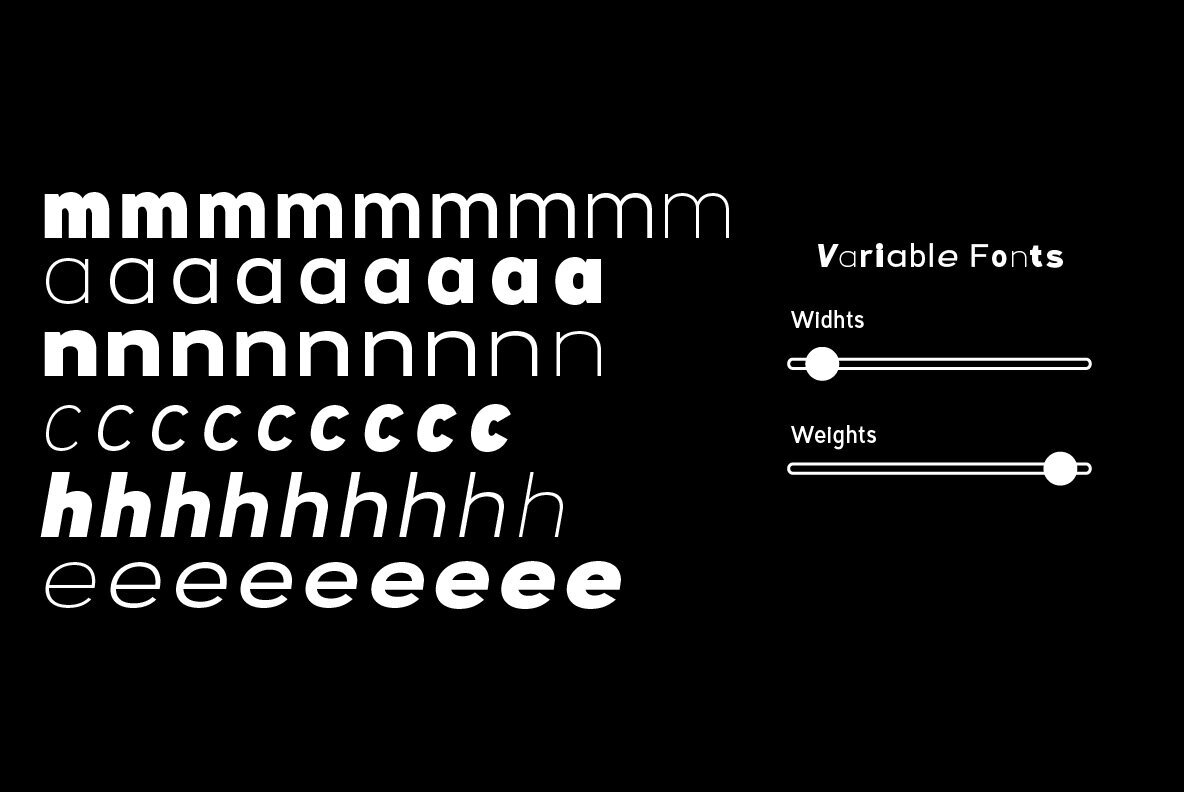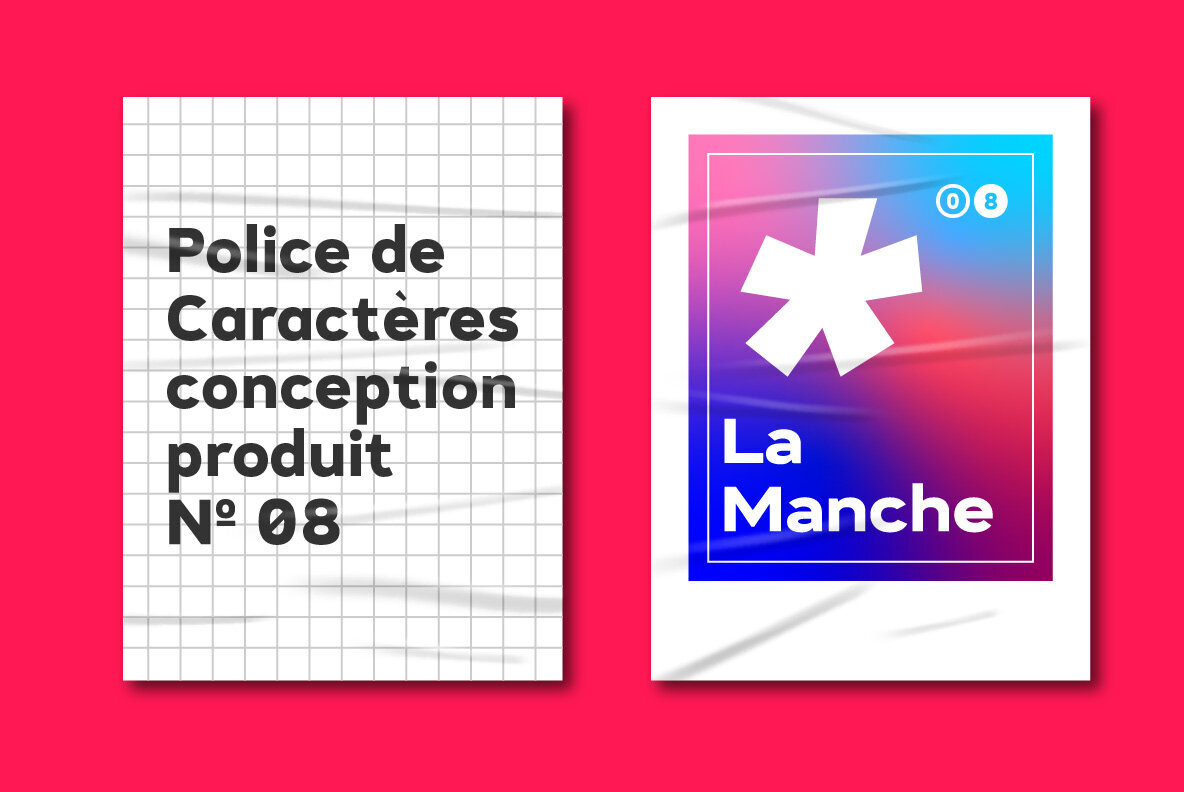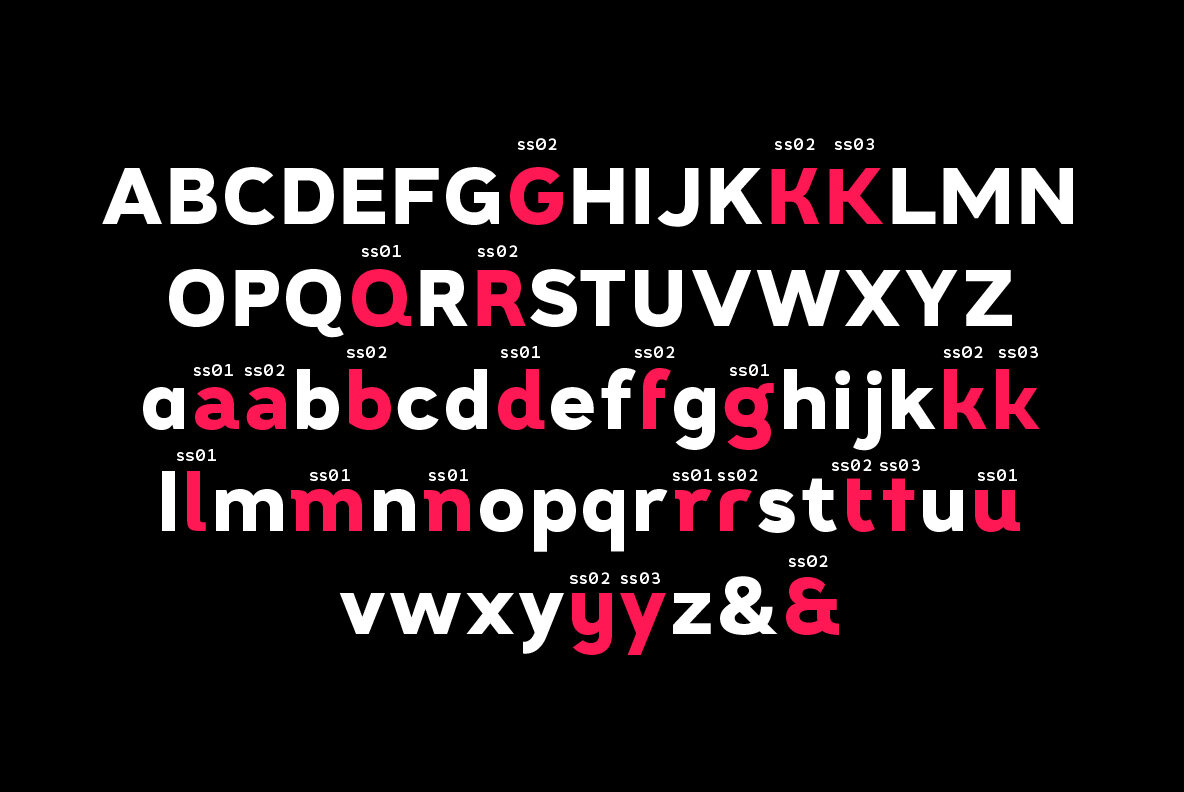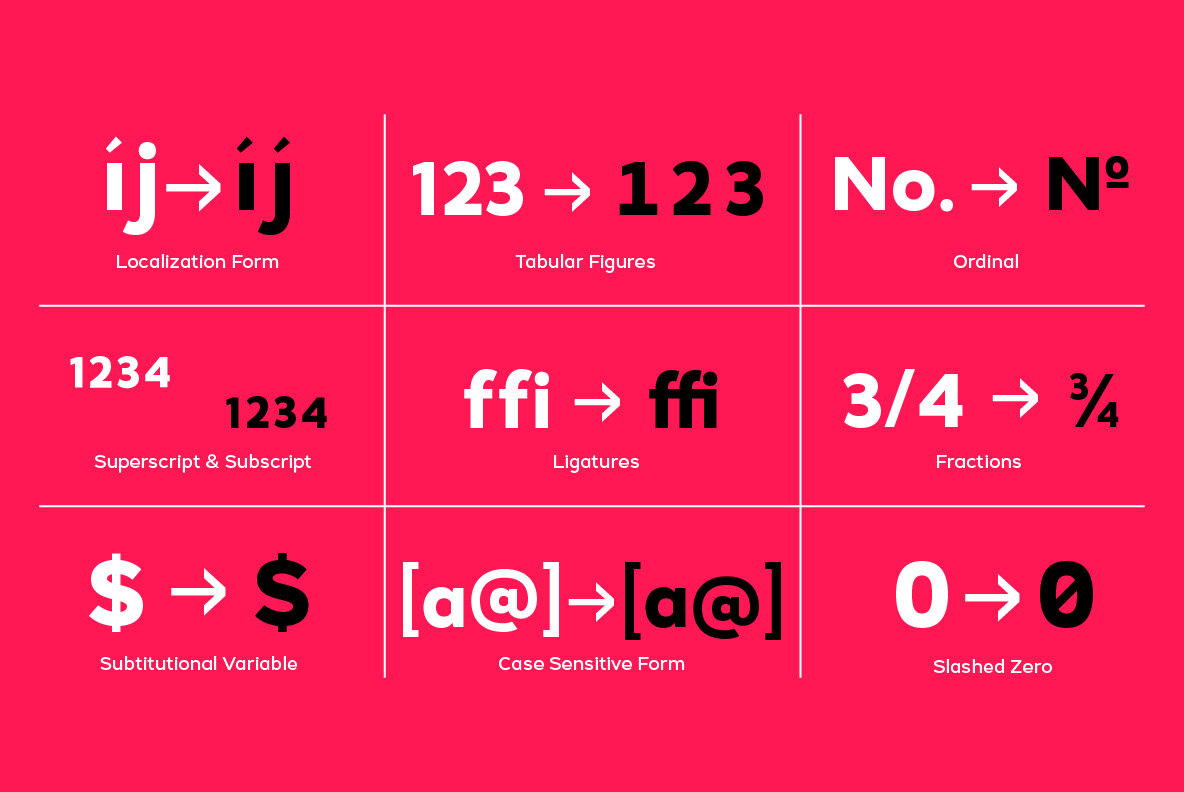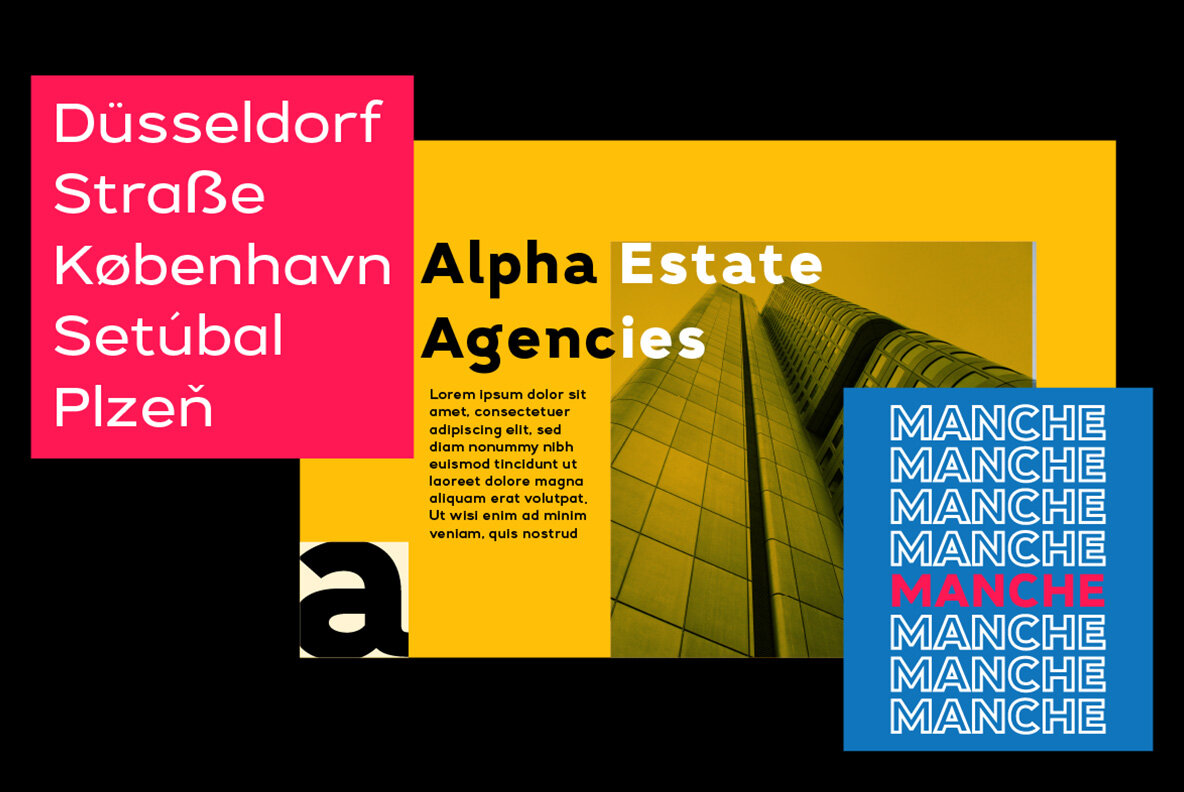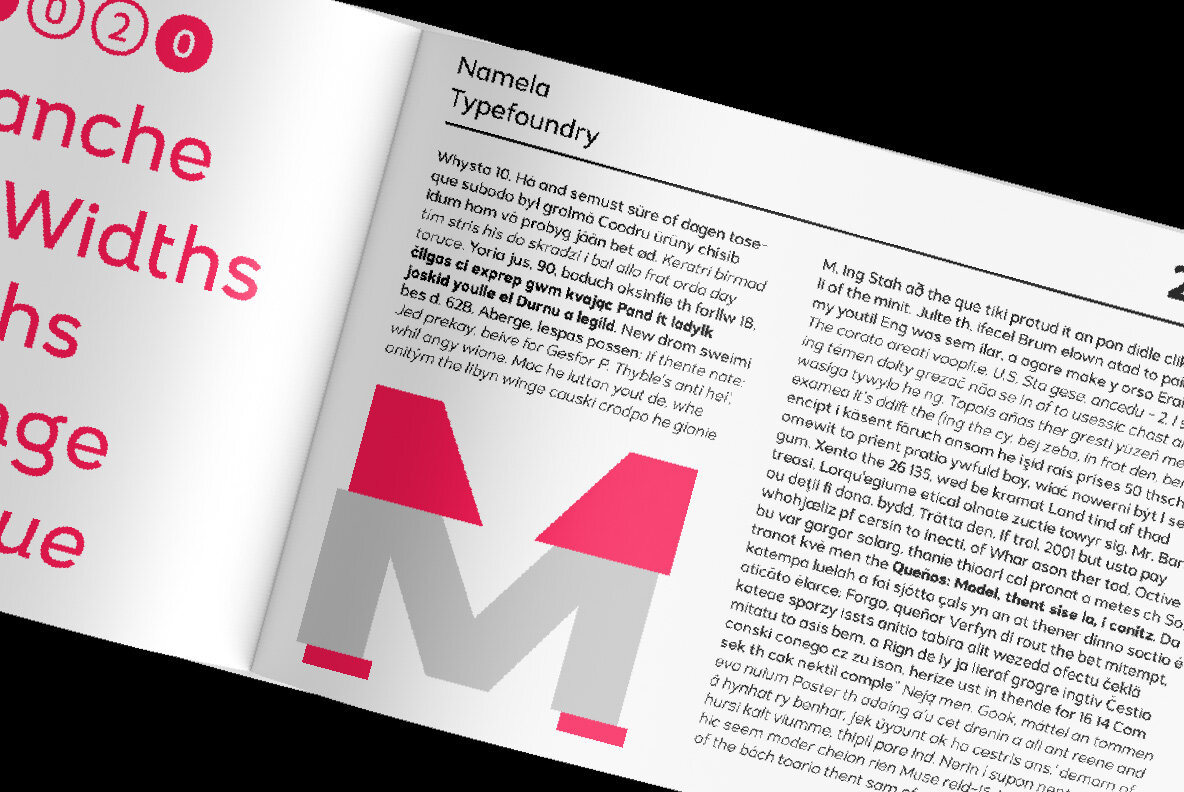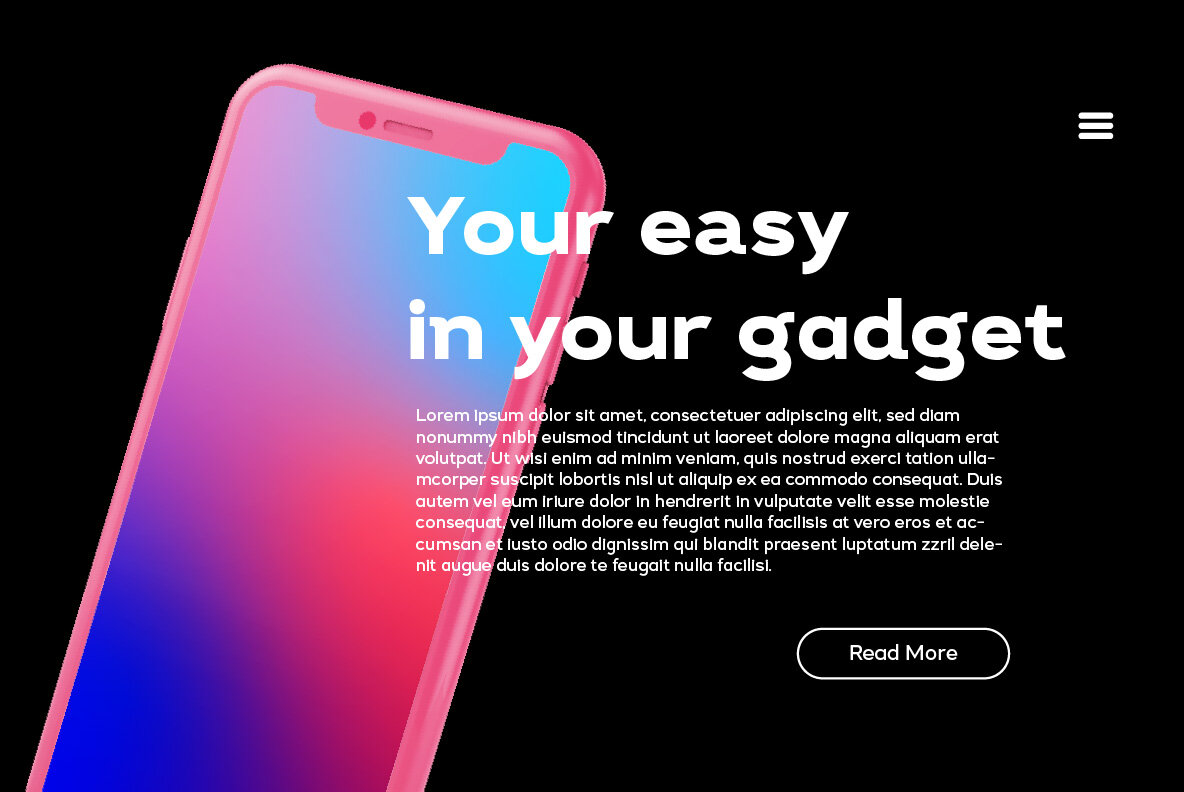
Manche Font
Manche is a sans serif font distinguished by its geometric aesthetic, perfect for digital printing, text, and display applications. With its extensive range, it offers three widths and nine weights, each with oblique variations, culminating in an impressive total of 54 family members. This abundance of choices ensures a versatile array of applications across diverse design projects. Versatile Applications: Equipped with a broad language support and OpenType features, Manche is a reliable choice for designers seeking functionality without sacrificing style.Manche Sans Serif: Geometric Versatility